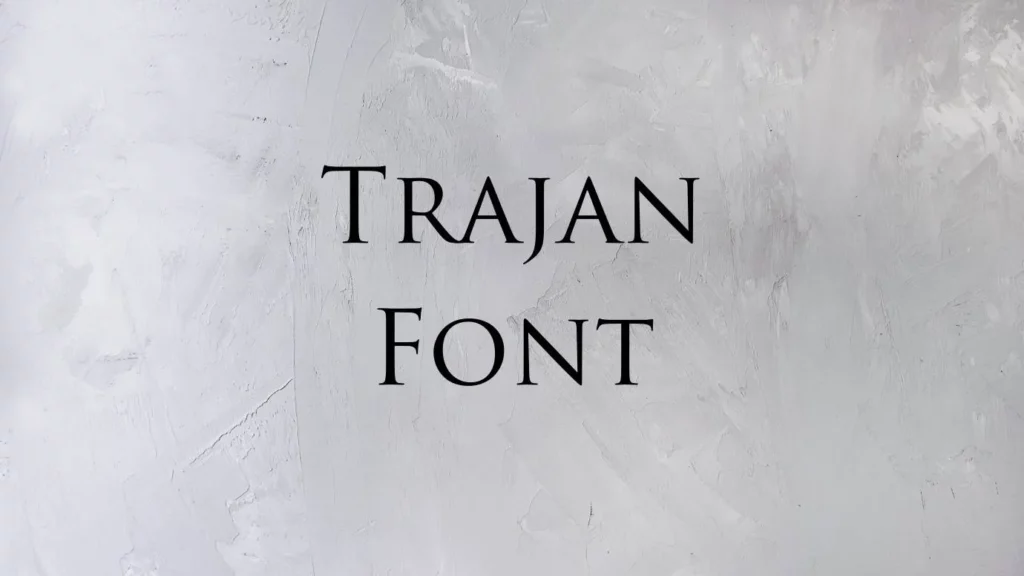
Representing you a proficient and appealing typeface that is called Trajan Font, it has been created by Carol Twombly in the age of 1989. It belongs to the serif family and is specially designed for adobe Inc. The font's texture style is based on the formation of Roman square capitals called "capitalis monumentalis".
The typeface style has taken its name from the remainder of Trajan's Column, the designer made the typeface style by getting the concept from the complete-size image of a rubbing of the caption. While the typeface style has 2 unique weights including regular and bold. While you can try the Noto Serif Font as pairing this typeface style.
It is a great serif style typeface and it got much popularity, you can have a look over Granjon Font which has quite similar to this typeface and has matching nature.
The typeface style is originally seen in the adobe fonts library and got much popularity since its creation. The typeface style has 2 unique weights including regular and bold.